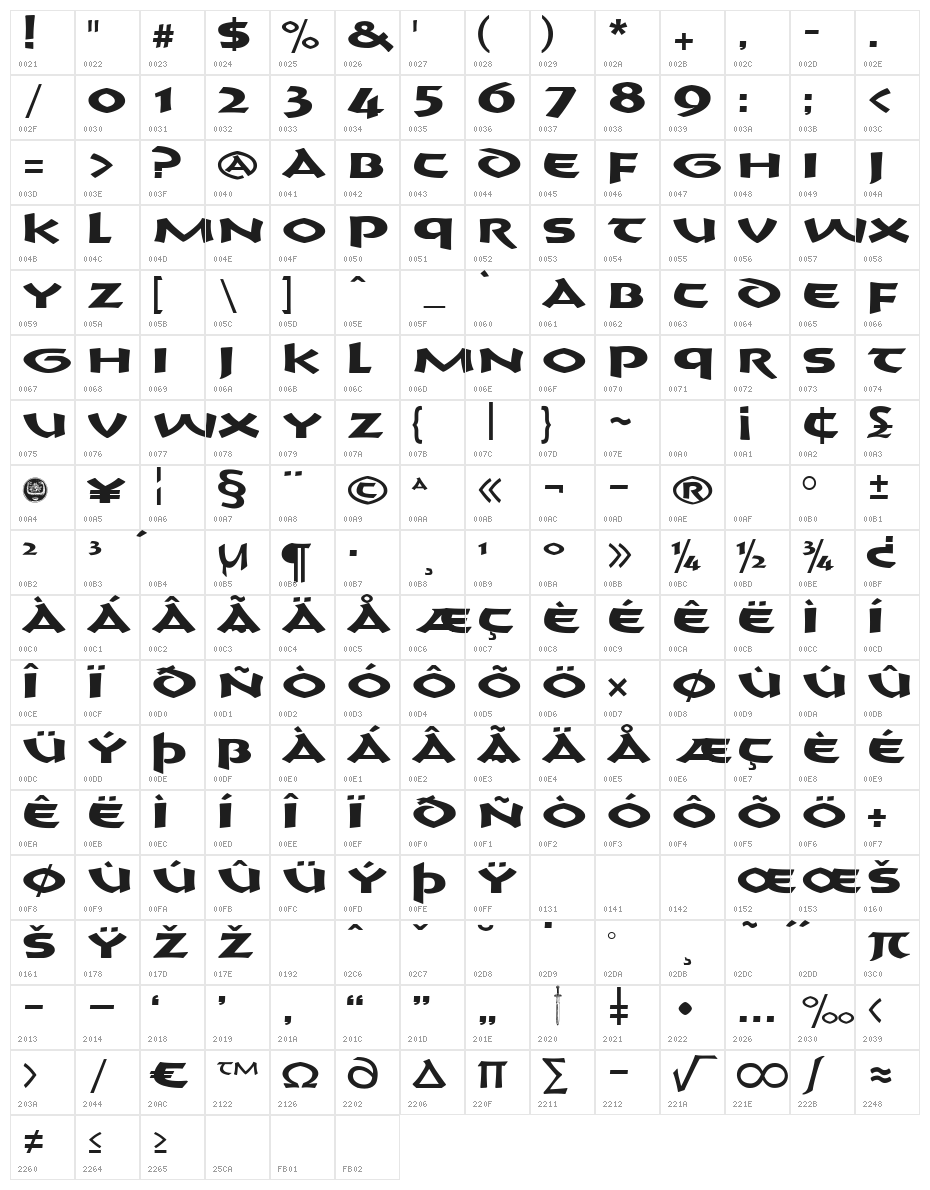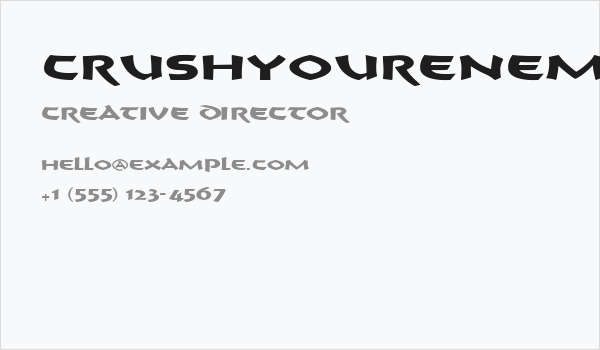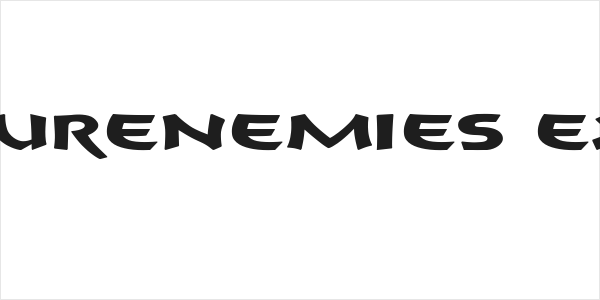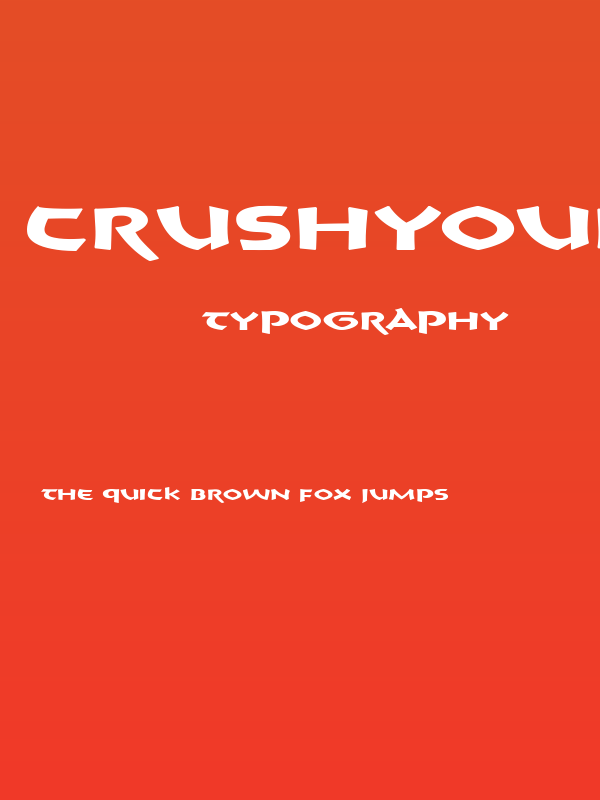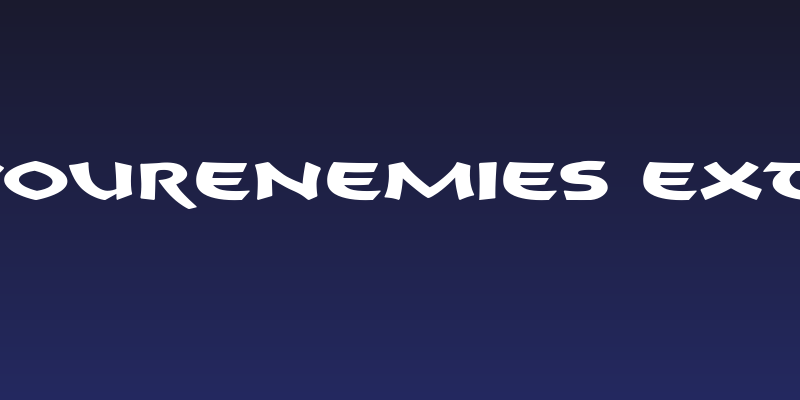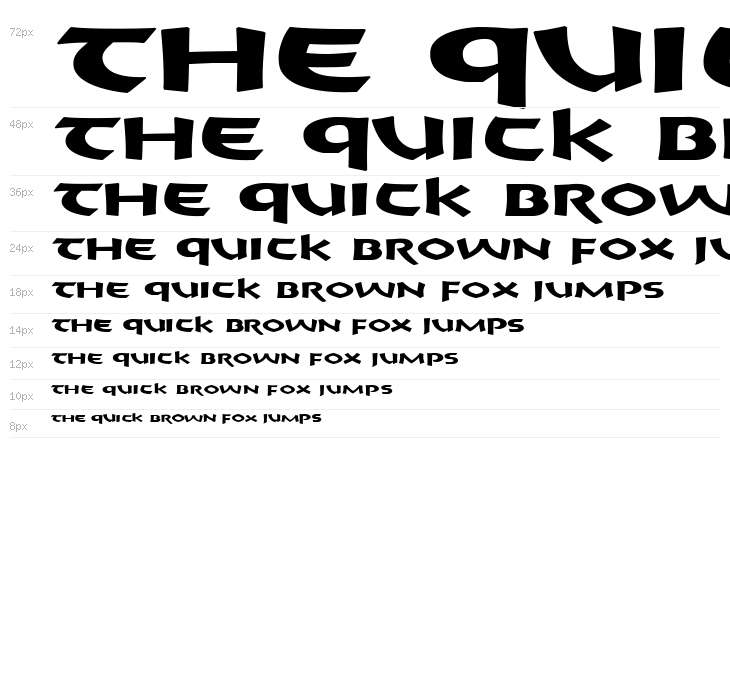
CrushYourEnemies ExtraBold Font
CrushYourEnemies ExtraBold Description
This font features a bold and aggressive style with sharp, angular edges and a strong presence. The uppercase letters are particularly striking, with exaggerated serifs and a dynamic, forward-leaning stance that conveys a sense of motion and power. The lowercase letters maintain this boldness, offering a consistent look throughout. Numbers and special characters are equally robust, ensuring versatility across various uses. The overall design is reminiscent of medieval or fantasy themes, making it ideal for projects that require a dramatic and impactful typeface.
| Proposed Projects | Ideal for video game titles, movie posters, fantasy novels, and branding for products with a strong, adventurous theme. |